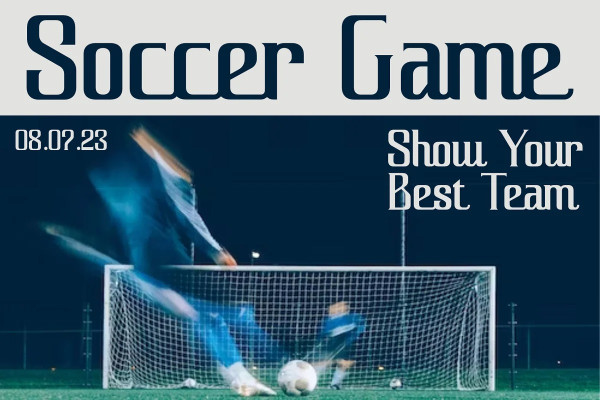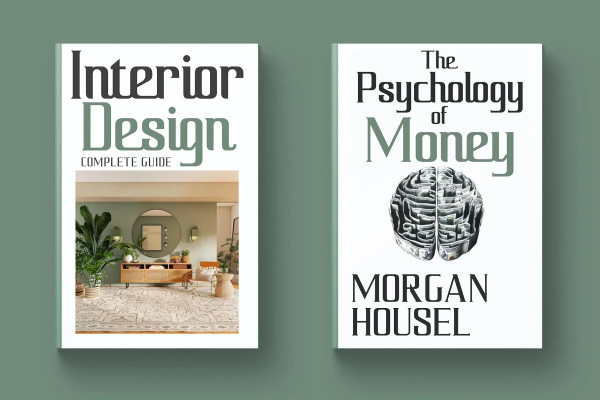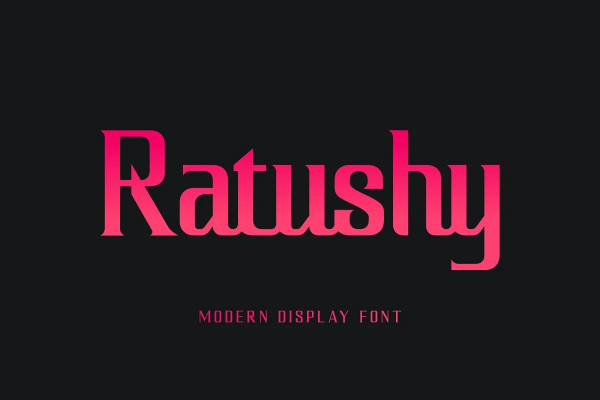
Ratushy Font
Ratushy Font is a serif-based display font with lowercase letters that have connecting characters for a unique look and crafted with care that will make your designs stand out and modern. You can use this font for any purpose, especially to make your business more attractive. This font is also suitable for sports, e-sport logos, games or hi-tech company logos. This font also supports multilanguage.